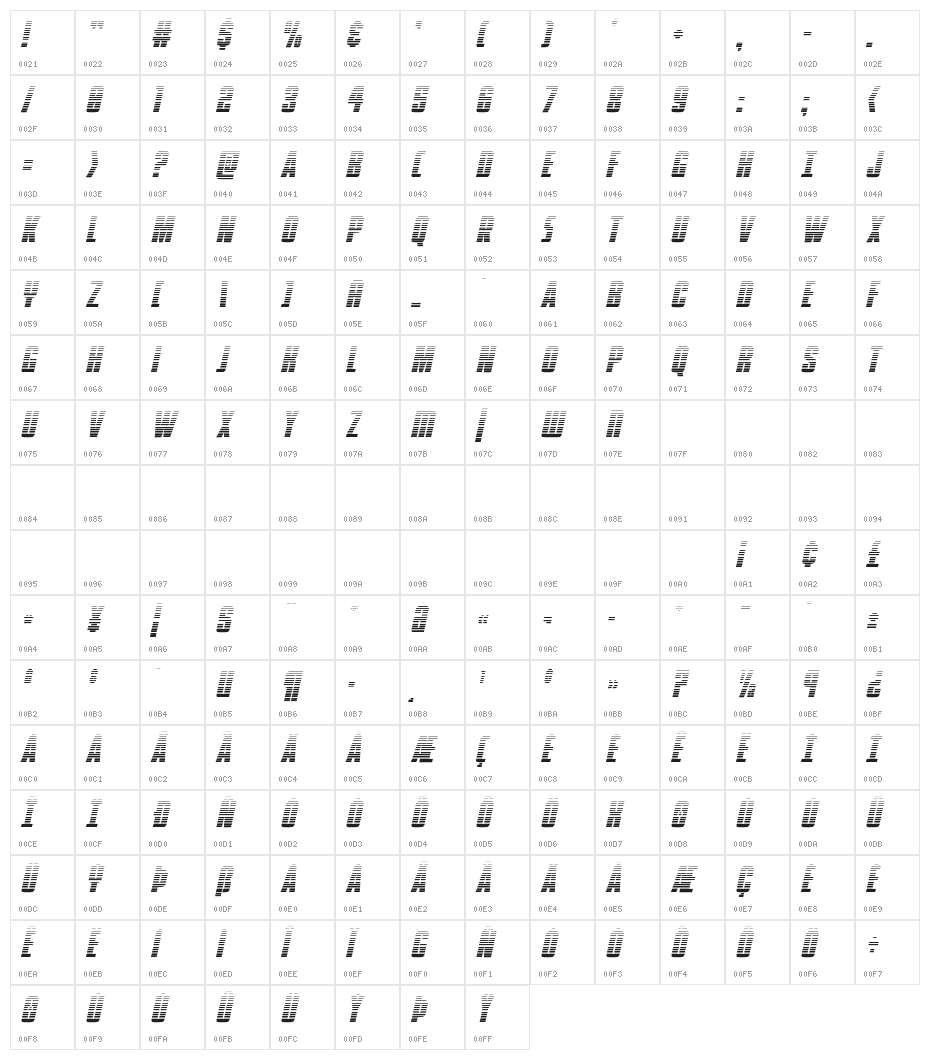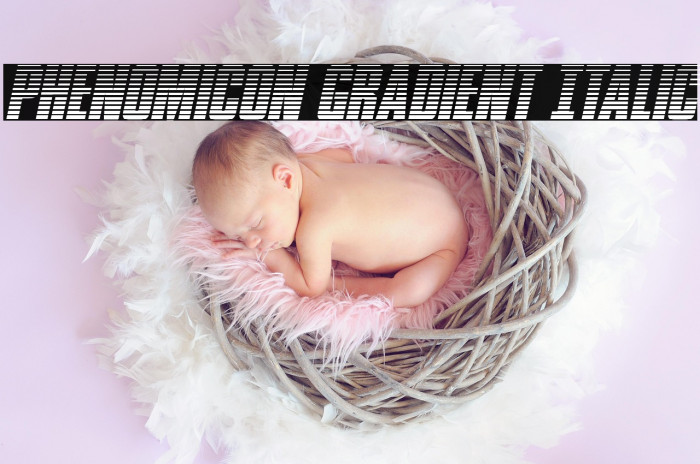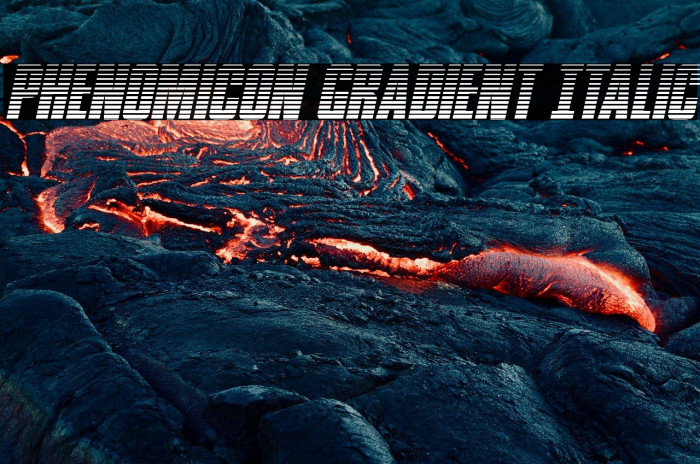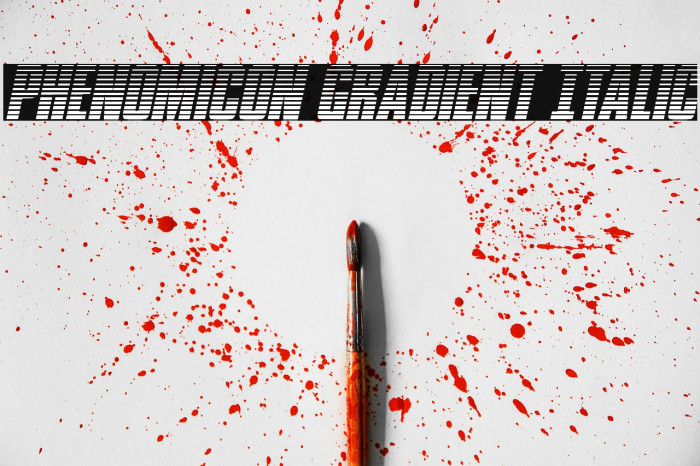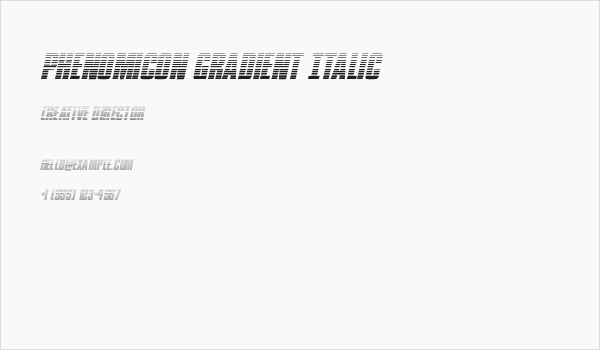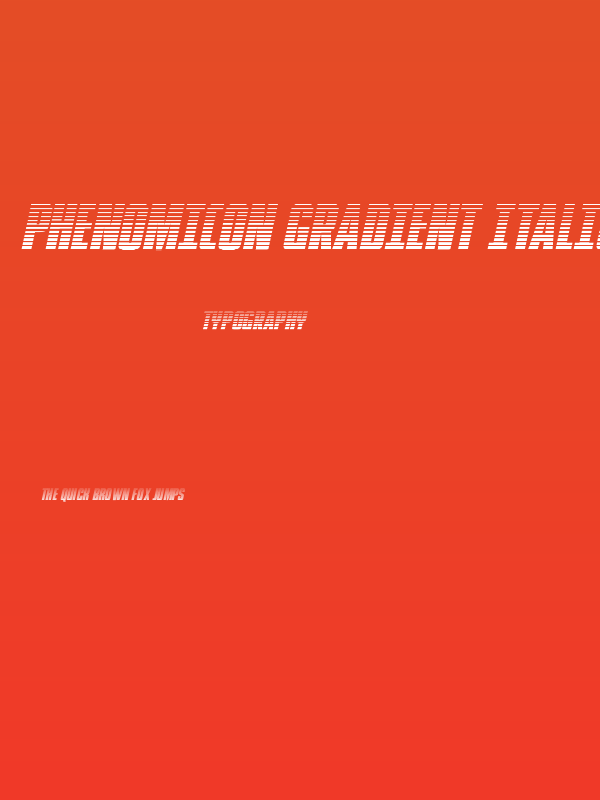
Phenomicon Gradient Italic Font
Phenomicon Gradient Italic Description
This font features a bold, italicized style with a unique gradient effect that gives it a dynamic and modern appearance. The characters are designed with horizontal lines that create a sense of movement and depth, making it stand out in any design. The uppercase and lowercase letters maintain a consistent width, while the numbers and special characters complement the overall aesthetic. This font is ideal for projects that require a futuristic or tech-inspired look, offering a visually striking option for headlines or logos.
| Proposed Projects | Ideal for tech-inspired designs, futuristic branding, dynamic posters, and eye-catching headlines. |